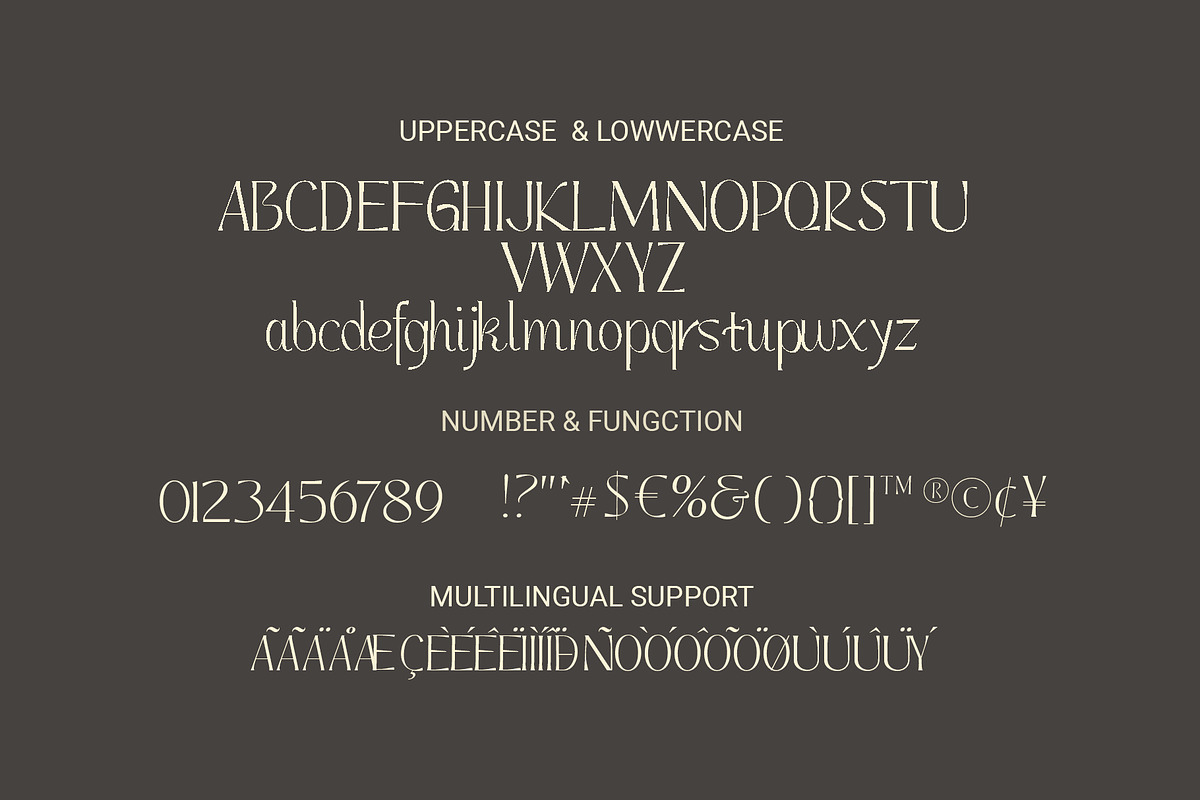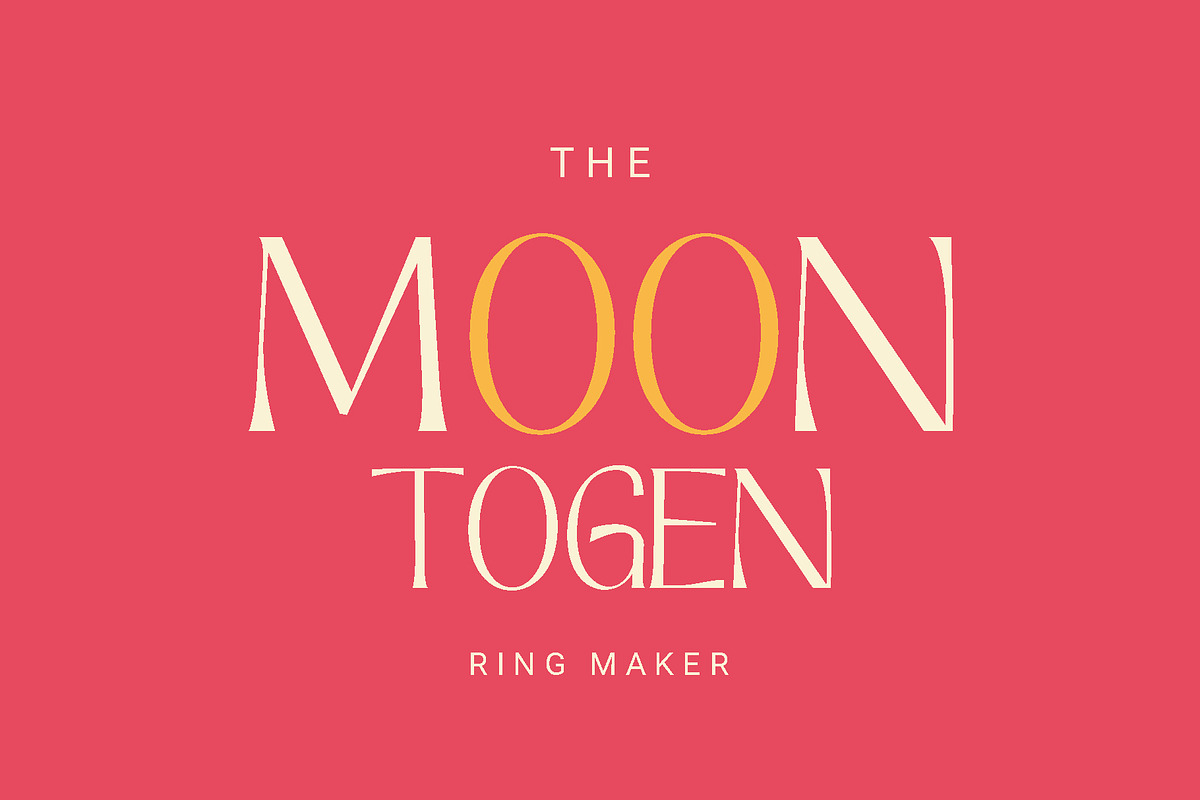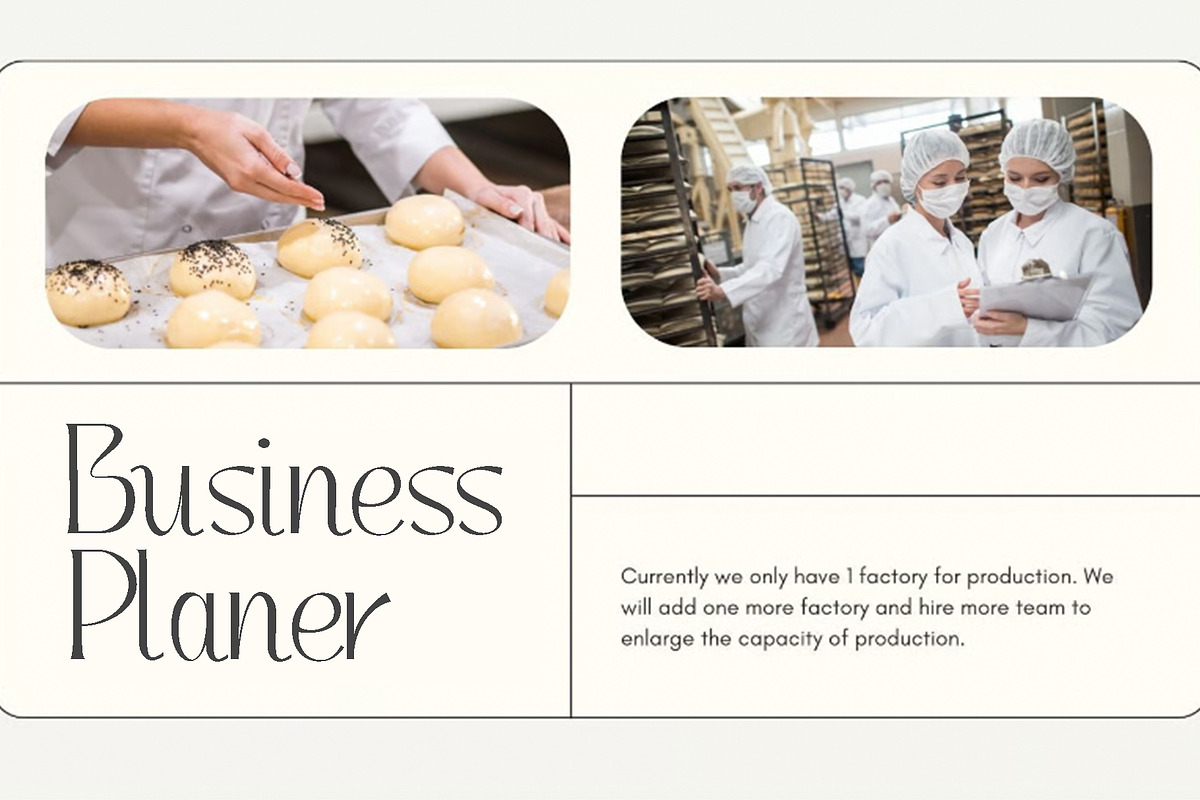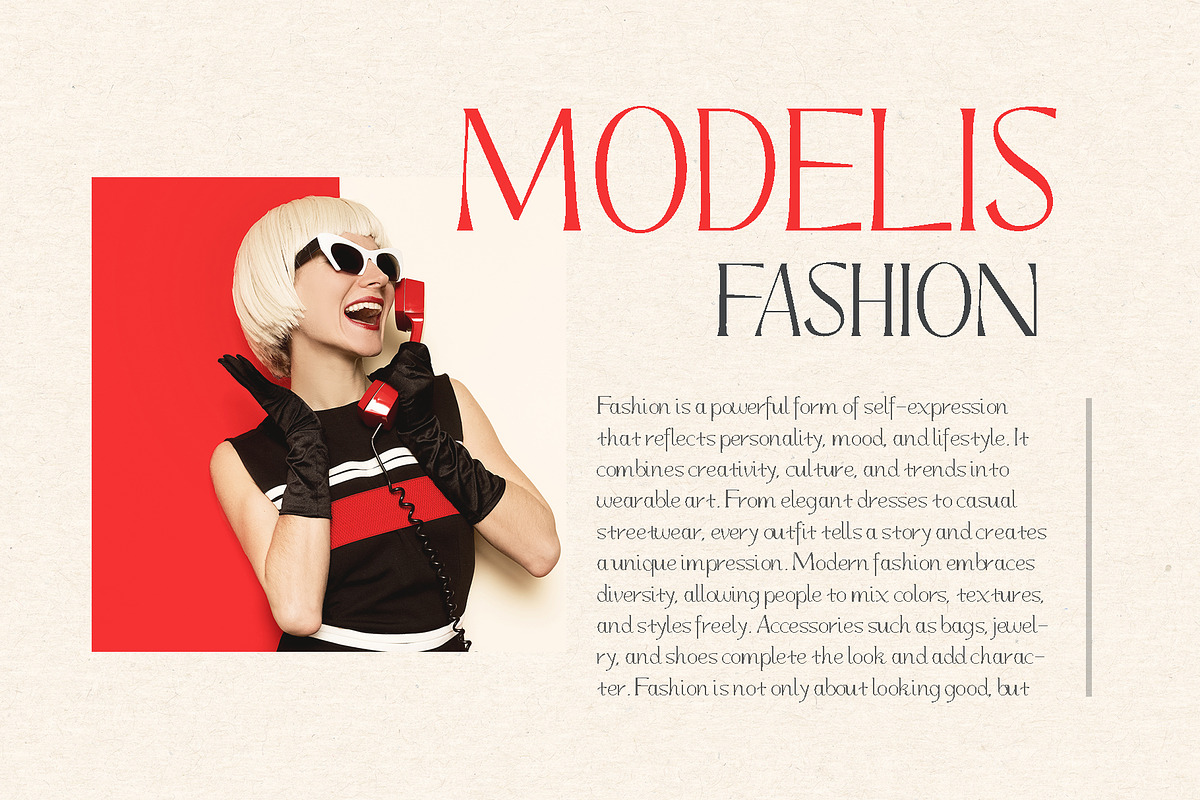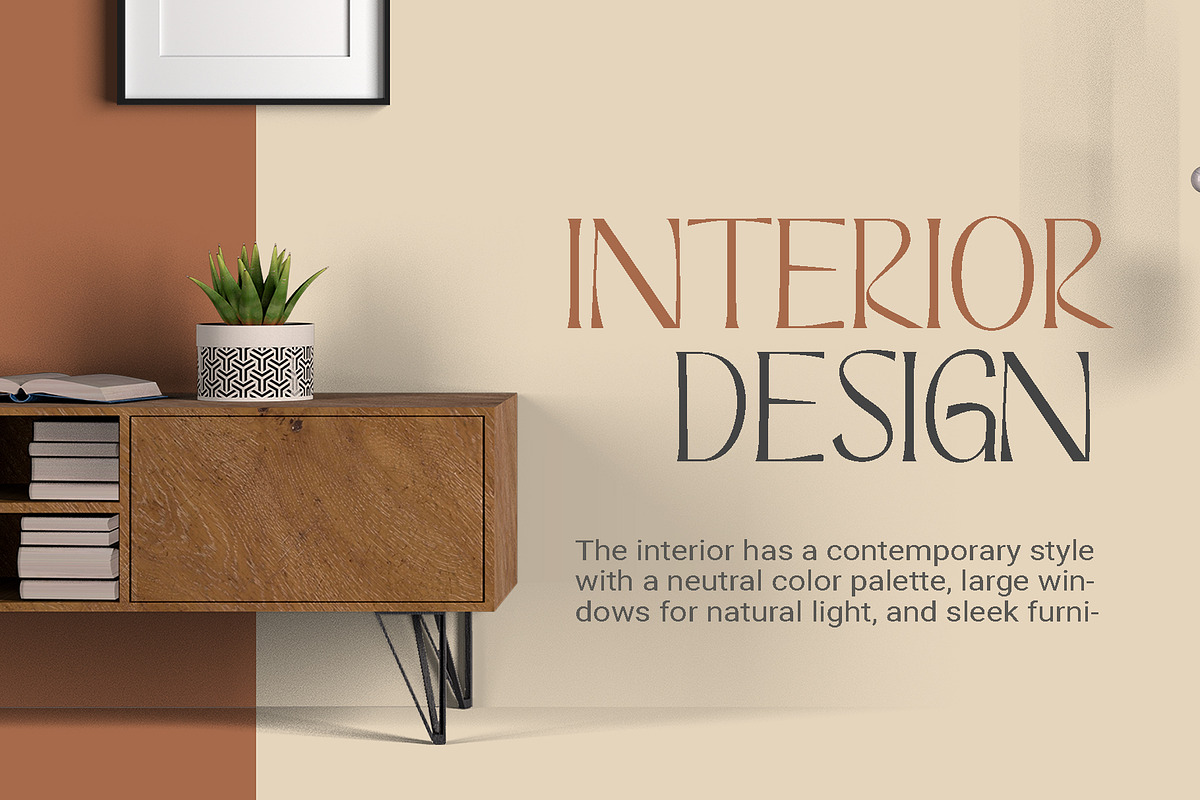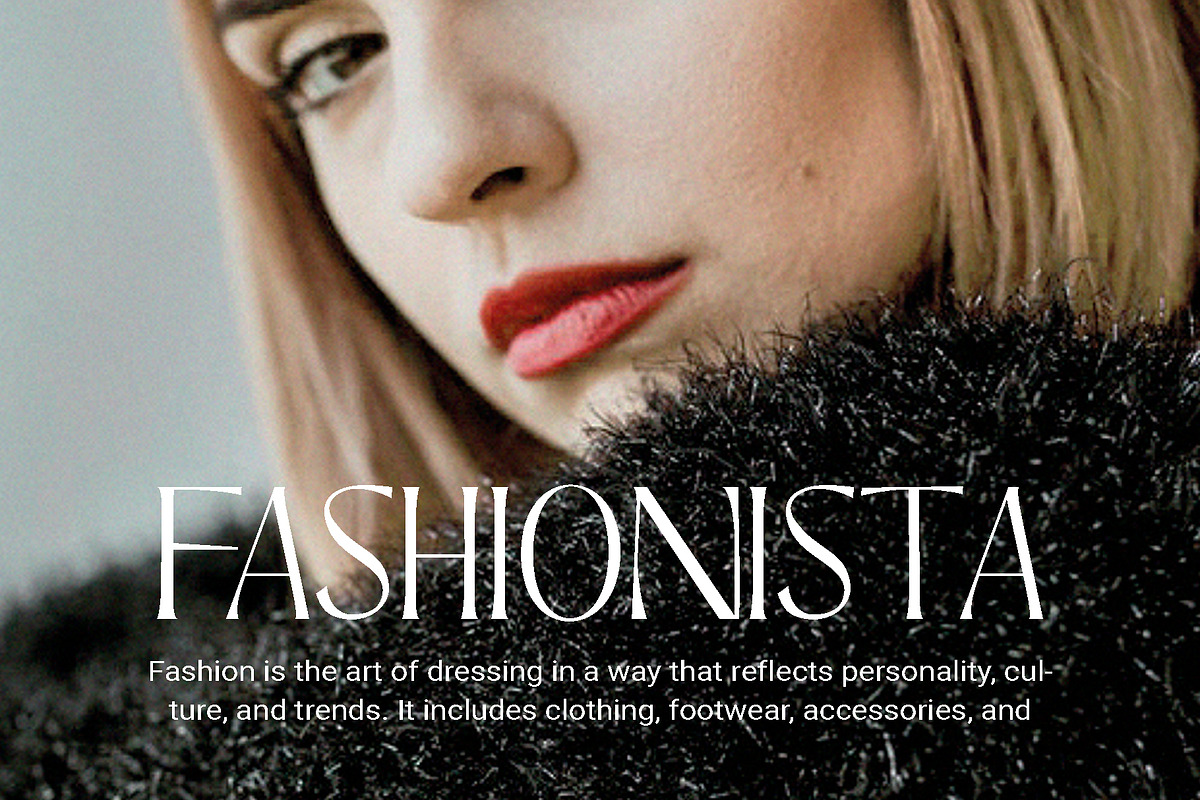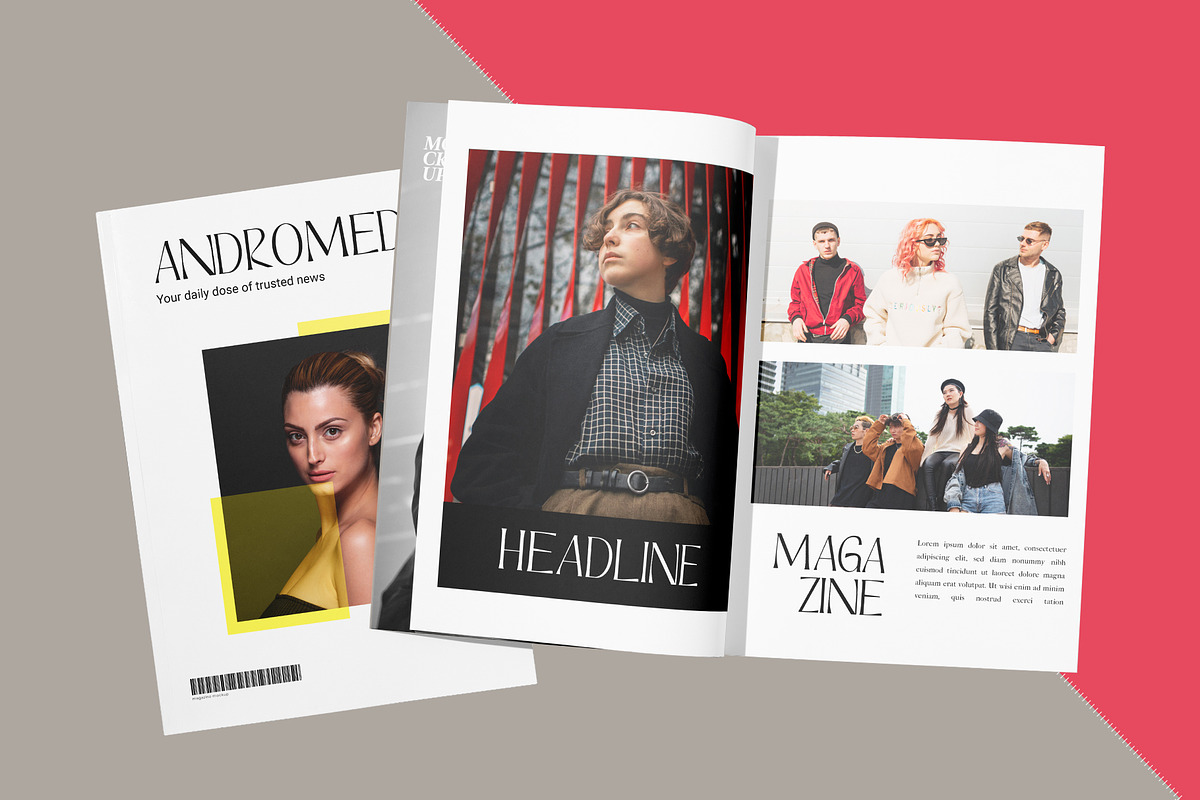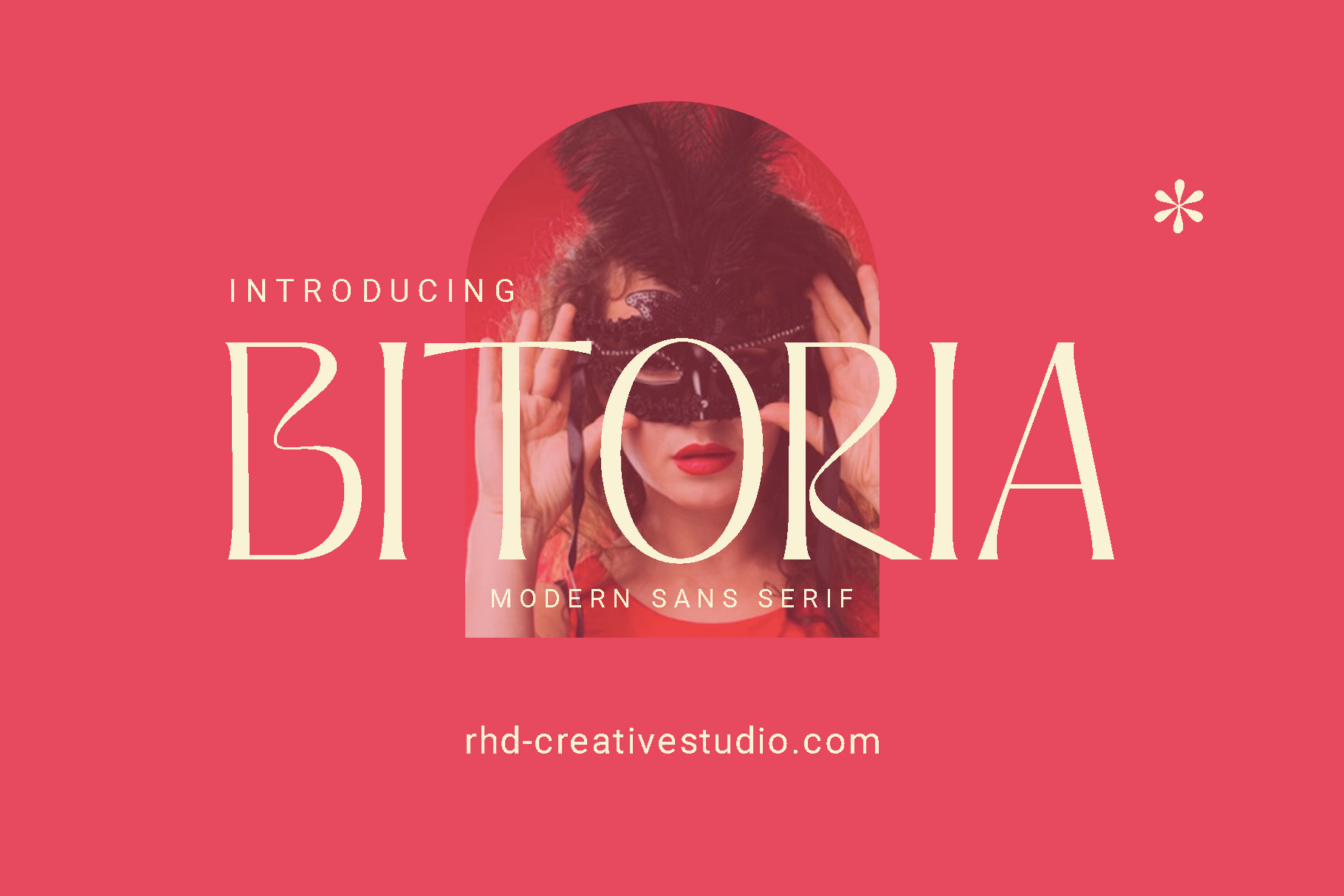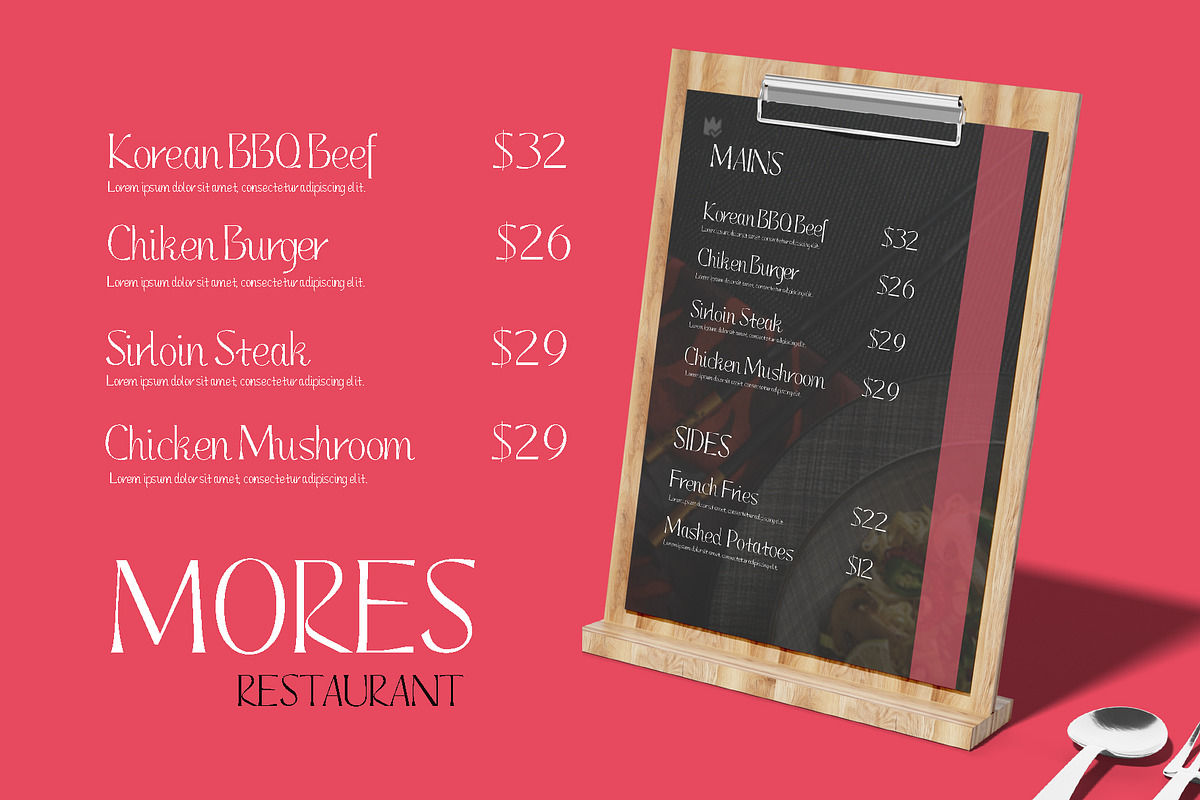
BITORIA - Modern Sans Serif Font
Hello everyone, I would like to introduce BITORIA - Modern Sans Serif Font.
BITORIA - Modern Sans Serif Font with Handmade character. BITORIA - Modern Sans Serif Font, Modern font to make your design project stand out! BITORIA a perfectly choice for any creative endeavor, creating, modern, chic, lifestyle design such as logotype, title, cover, branding, invitations, wedding designs, display and magazine, social media posts, advertisements, printed quotes, product packaging, corporate brand, product designs, labels, photography, watermarks, special events and any other project with modern touch.
- Reguler & Italic